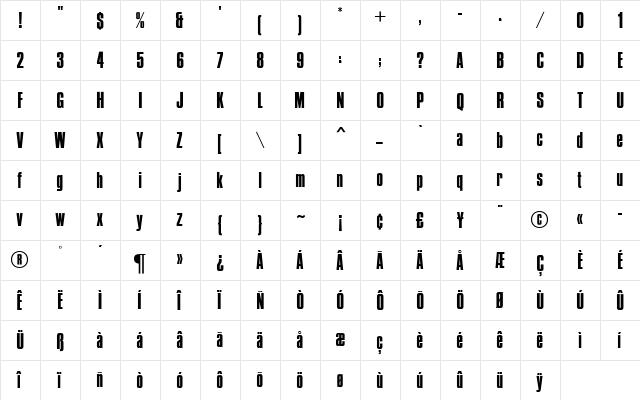
British Inserat MN Condensed
Design Context for British Inserat MN Typeface
British Inserat MN is a composed and adaptable typeface that performs quietly and consistently across a wide range of design contexts. Its narrow stance lets it pack a punch even in space-constrained designs.